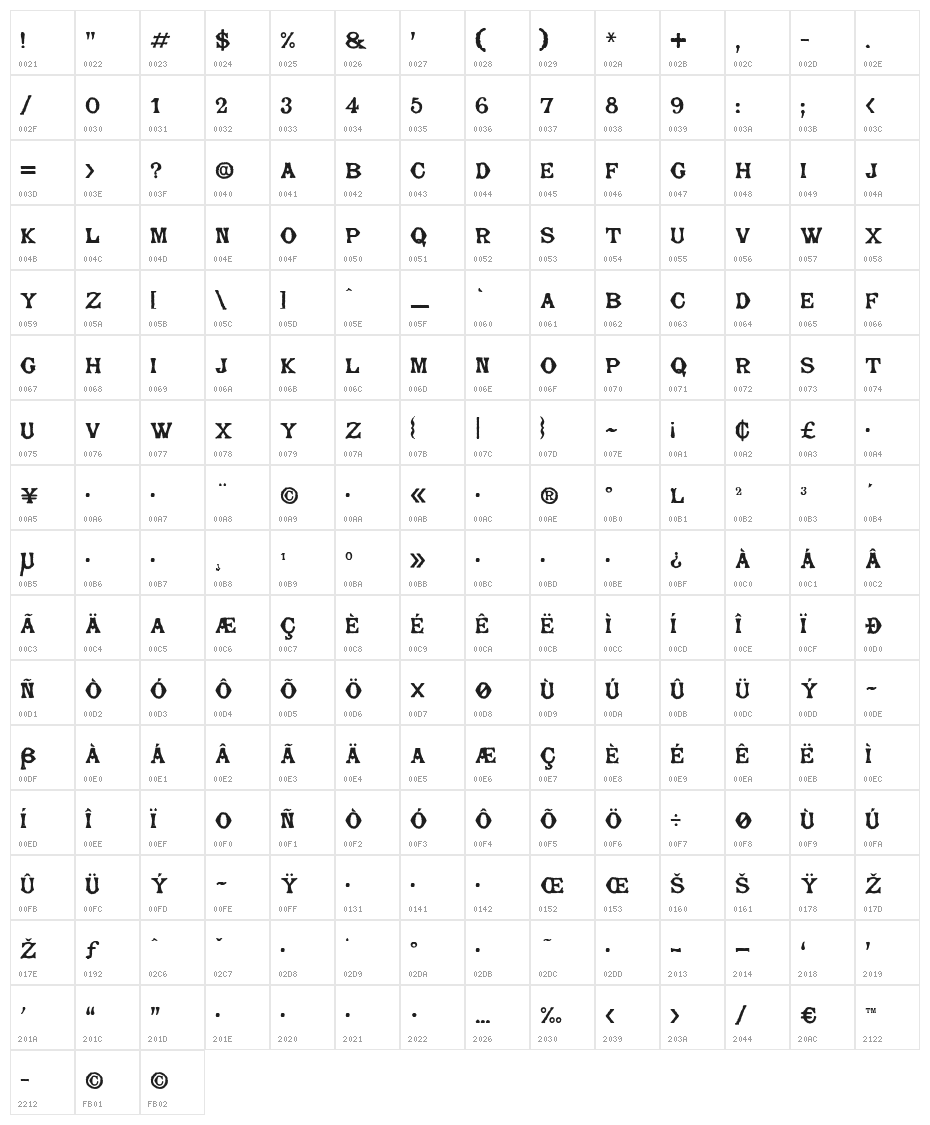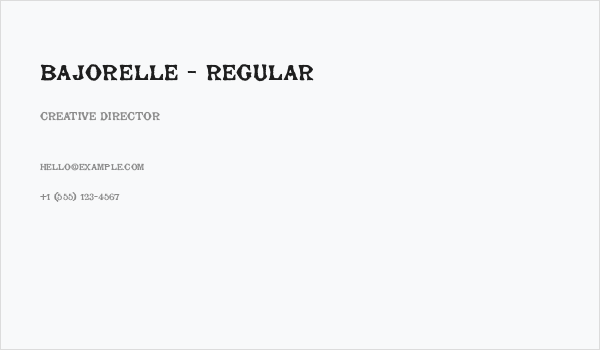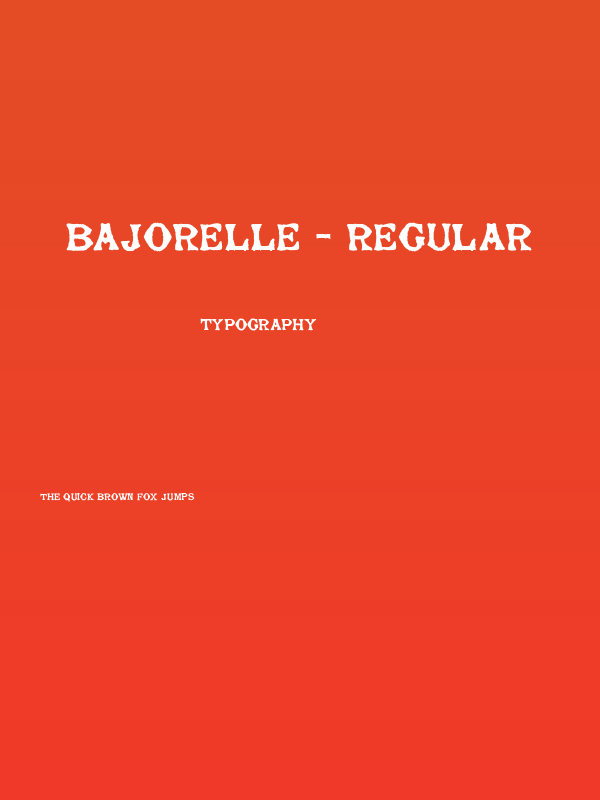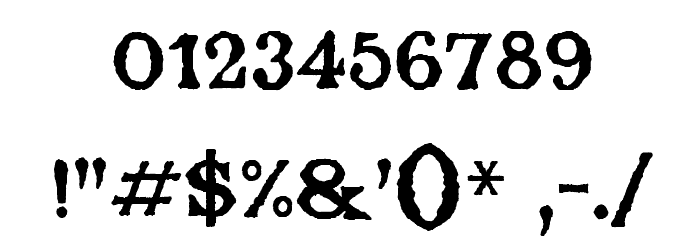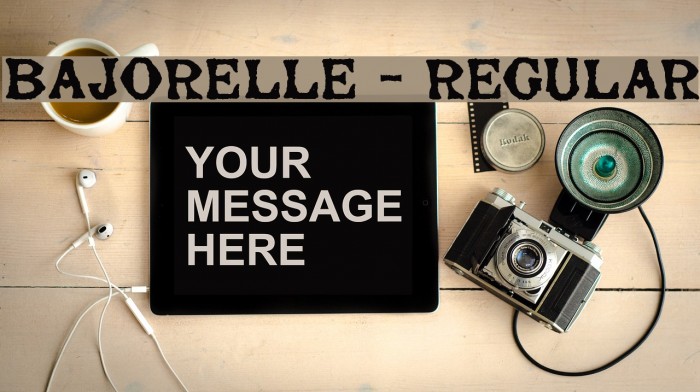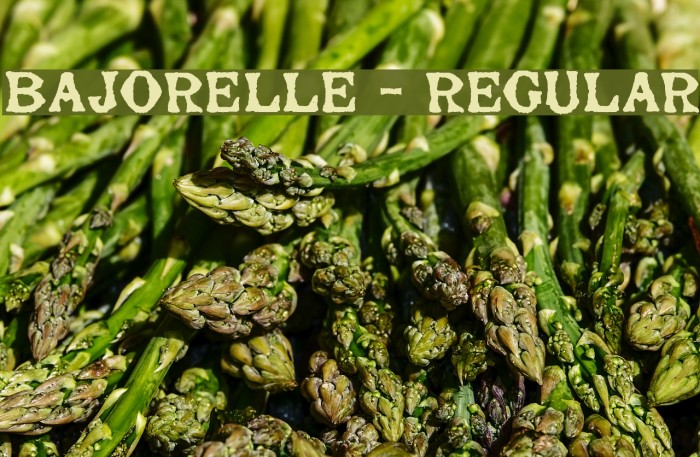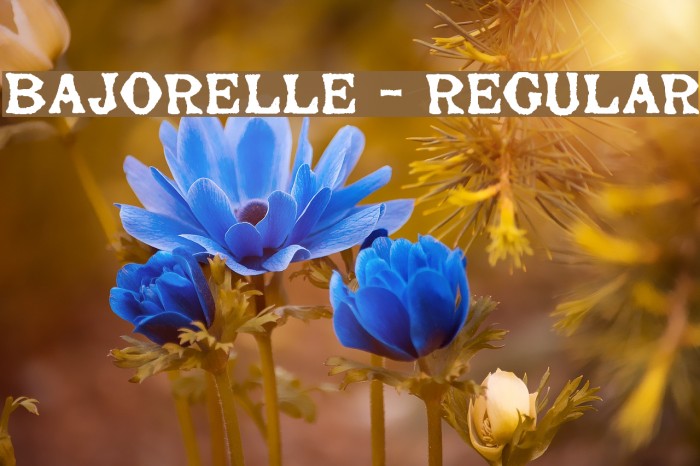
Bajorelle - Regular Font
Bajorelle - Regular Description
This font features a bold and textured appearance, reminiscent of vintage woodblock printing. The characters are robust with a slightly irregular edge, giving them a handcrafted feel. The uppercase letters are strong and impactful, while the lowercase letters maintain the same boldness with a slightly more compact form. Numbers and special characters follow the same stylistic approach, ensuring consistency across all glyphs. This font's unique texture and boldness make it stand out, ideal for projects that require a touch of rustic charm and authenticity.
| Proposed Projects | Ideal for posters, branding, packaging, and any design needing a vintage or rustic touch. |